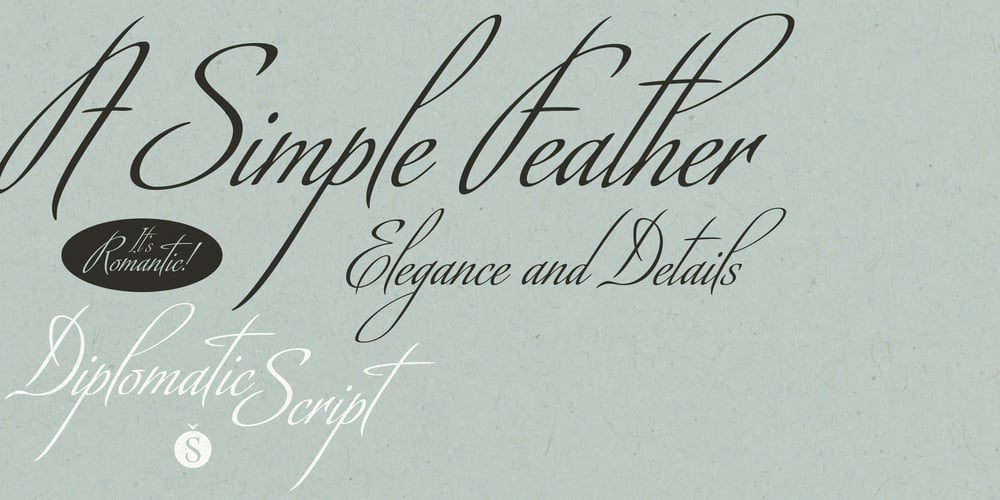
Diplomatic Font Family was designed by Alejandro Paul, Angel Koziupa and published by Sudtipos. Diplomatic contains 1 styles and family package options. Diplomatic is another script from the Koziupa and Paul duo. It relies on calligraphic simplicity to reach its artistic sophistication. Prominent ascenders and descenders work alongside calculated but casual strokes to produce an unmistakably elegant typesetting. Designed by Koziupa and digitized by Ale Paul.